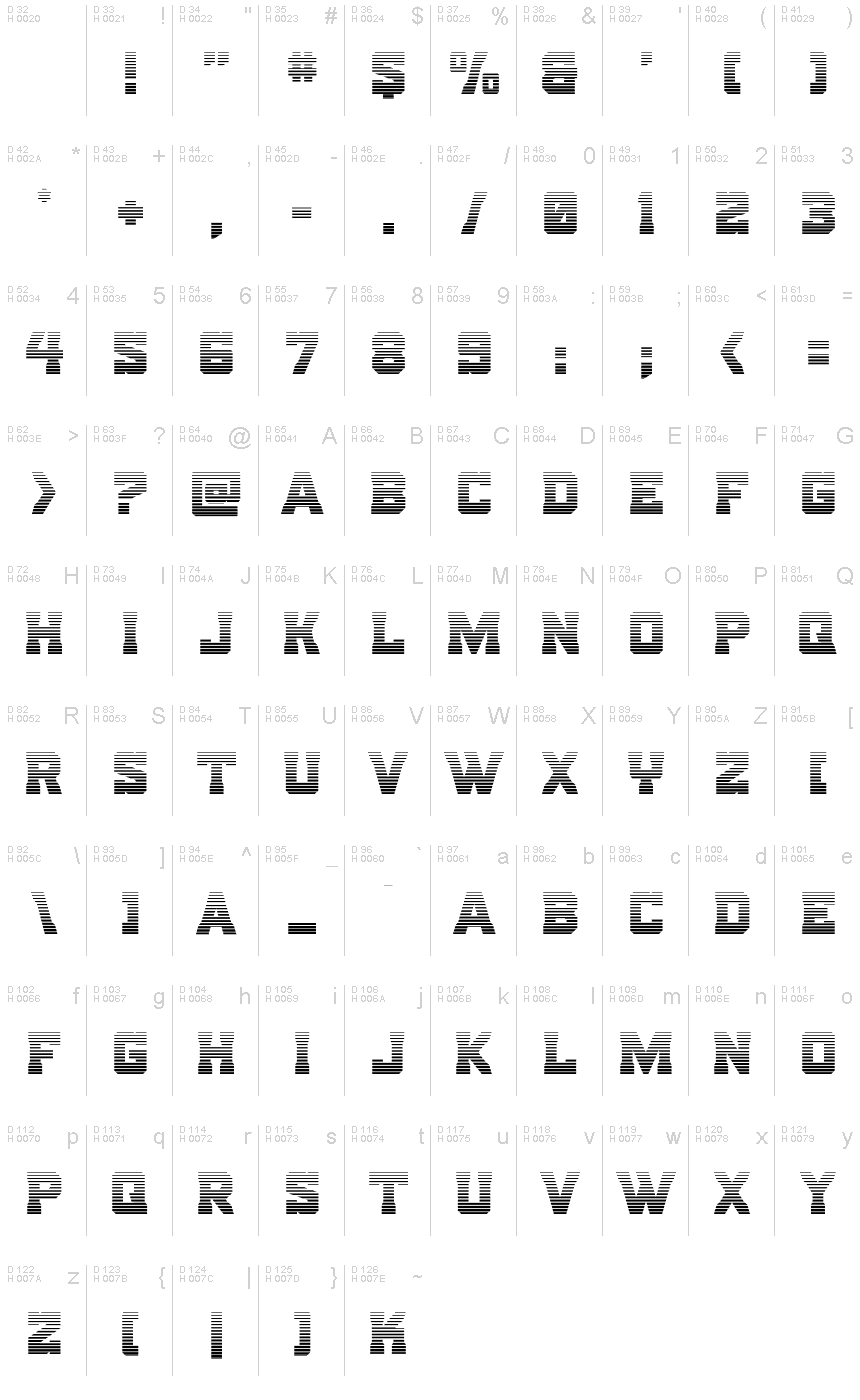
Indian Steeds Gradient
This old school serif font, Indian Steeds Gradient, designed by Daniel Zadorozny, is bold and wide. Perfect for making your projects stand out, it's perfect for headlines, logos and signs—anything needing a touch of classic yet modern elegance.